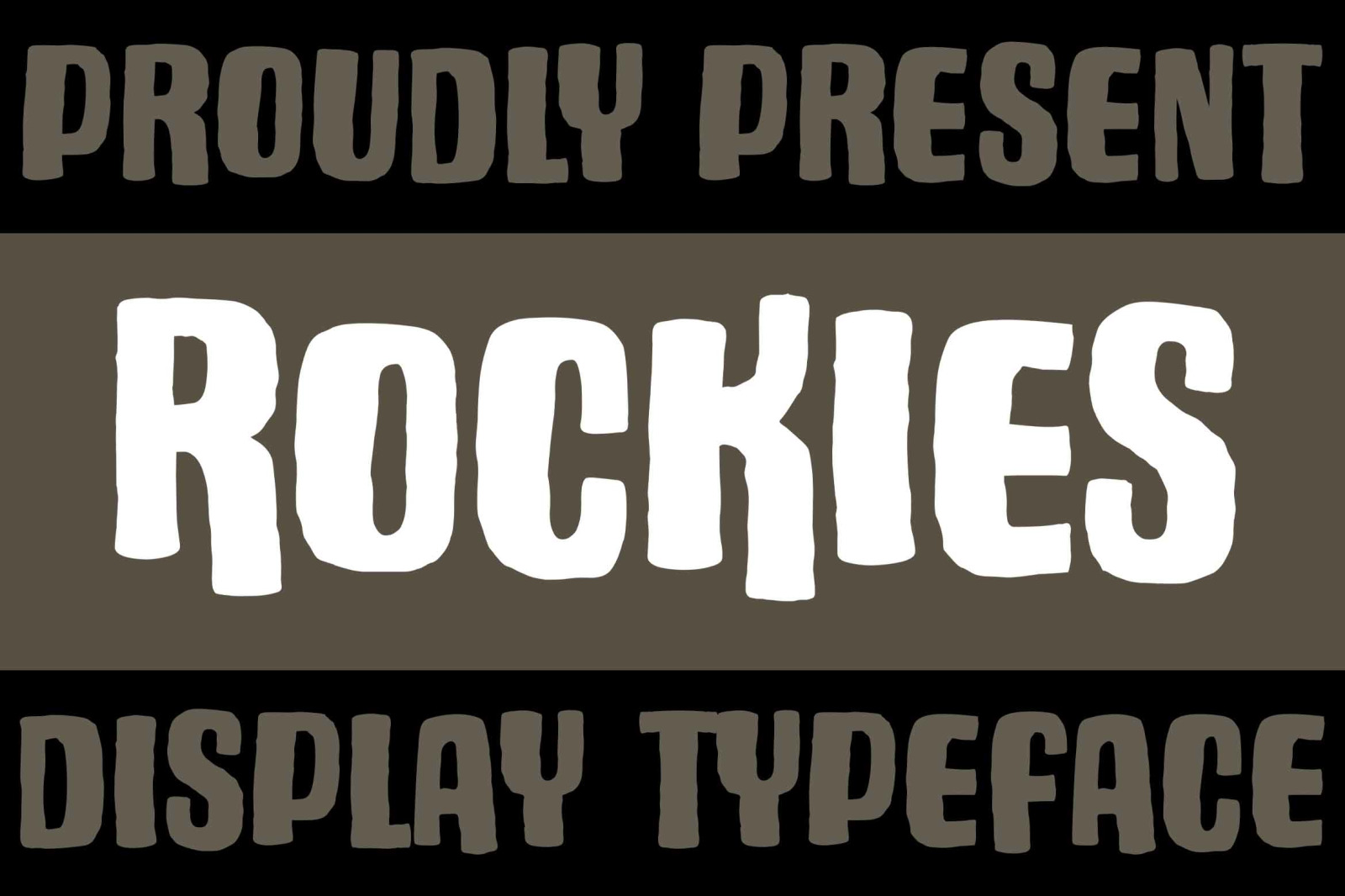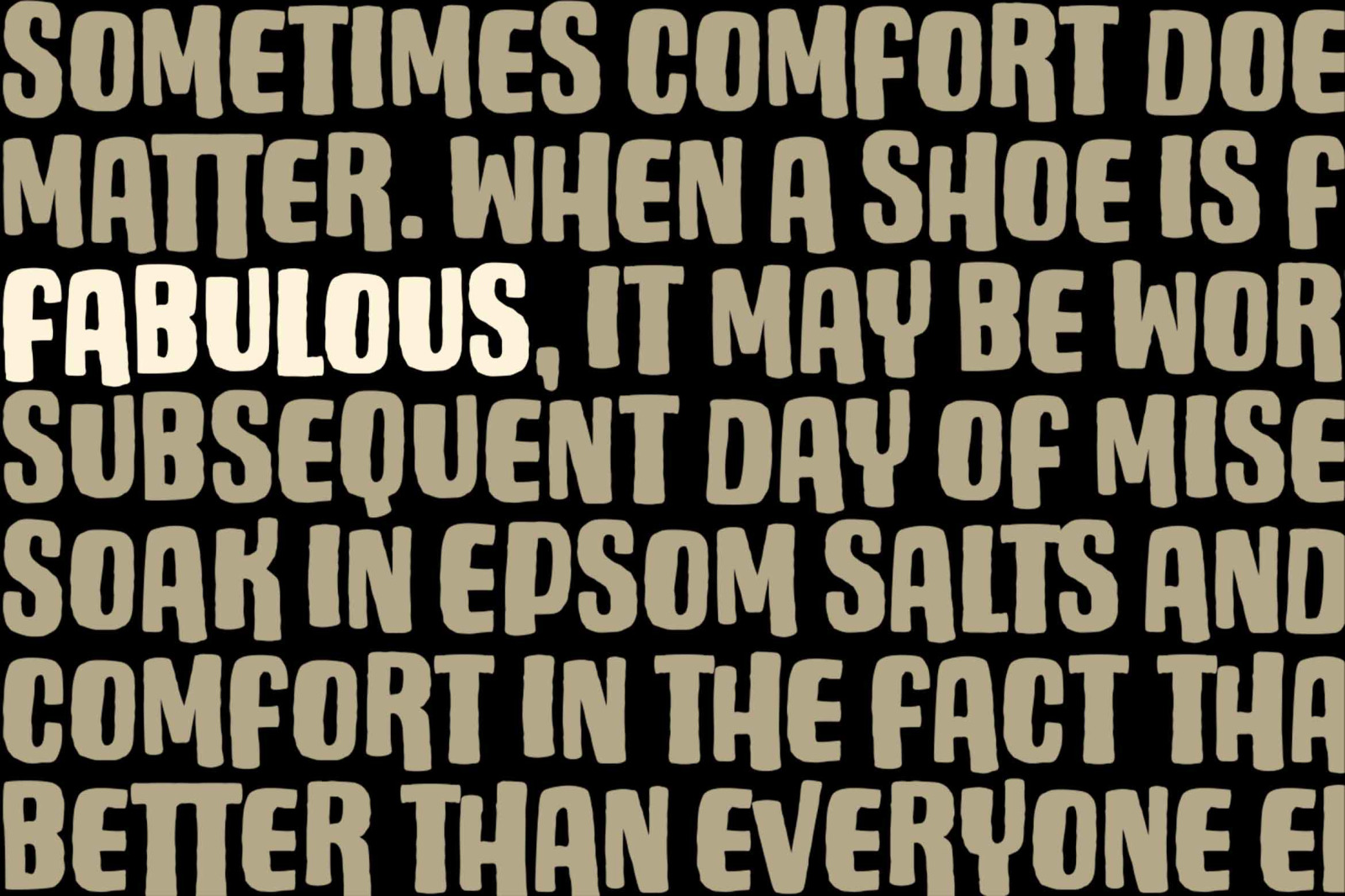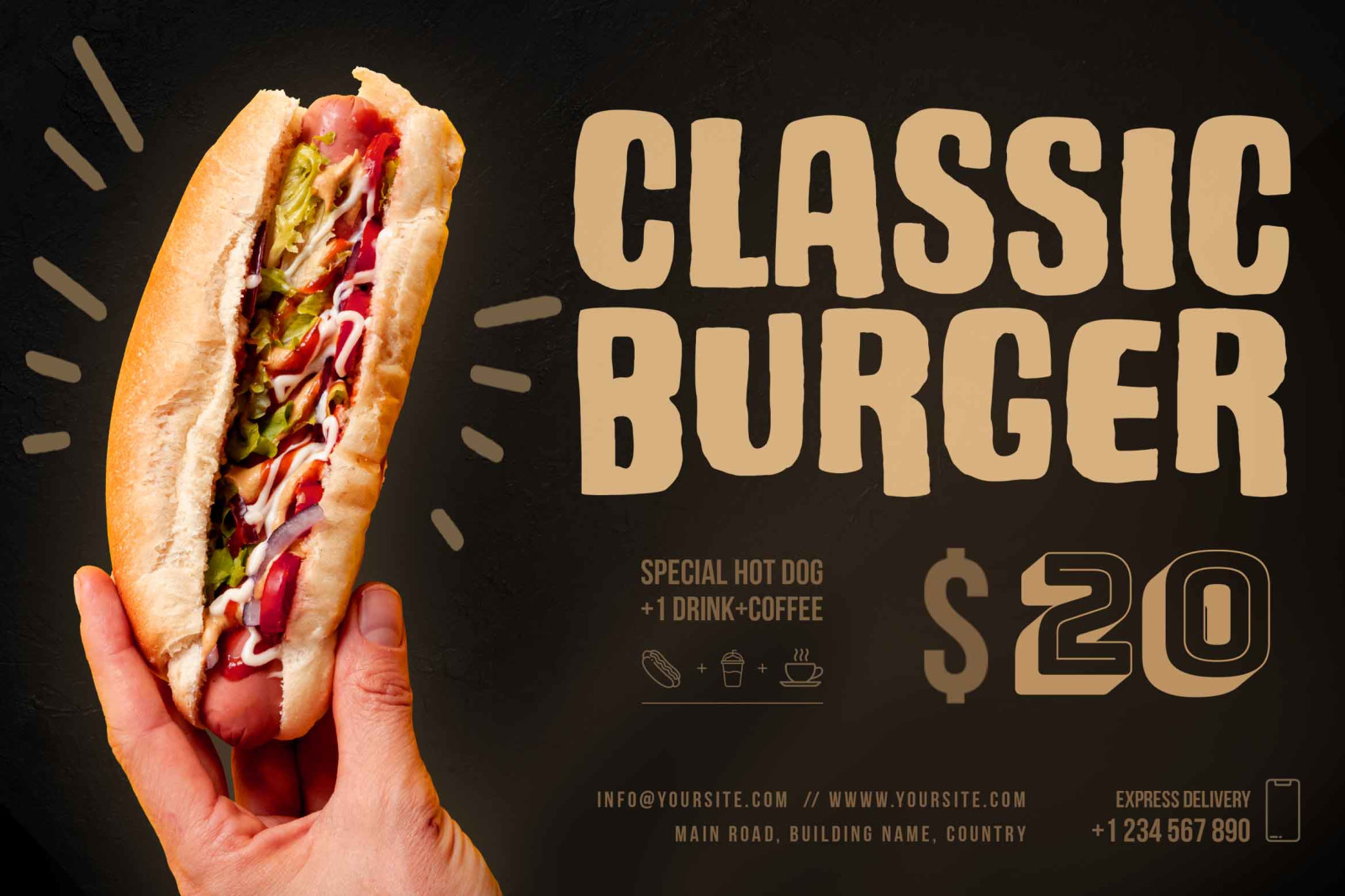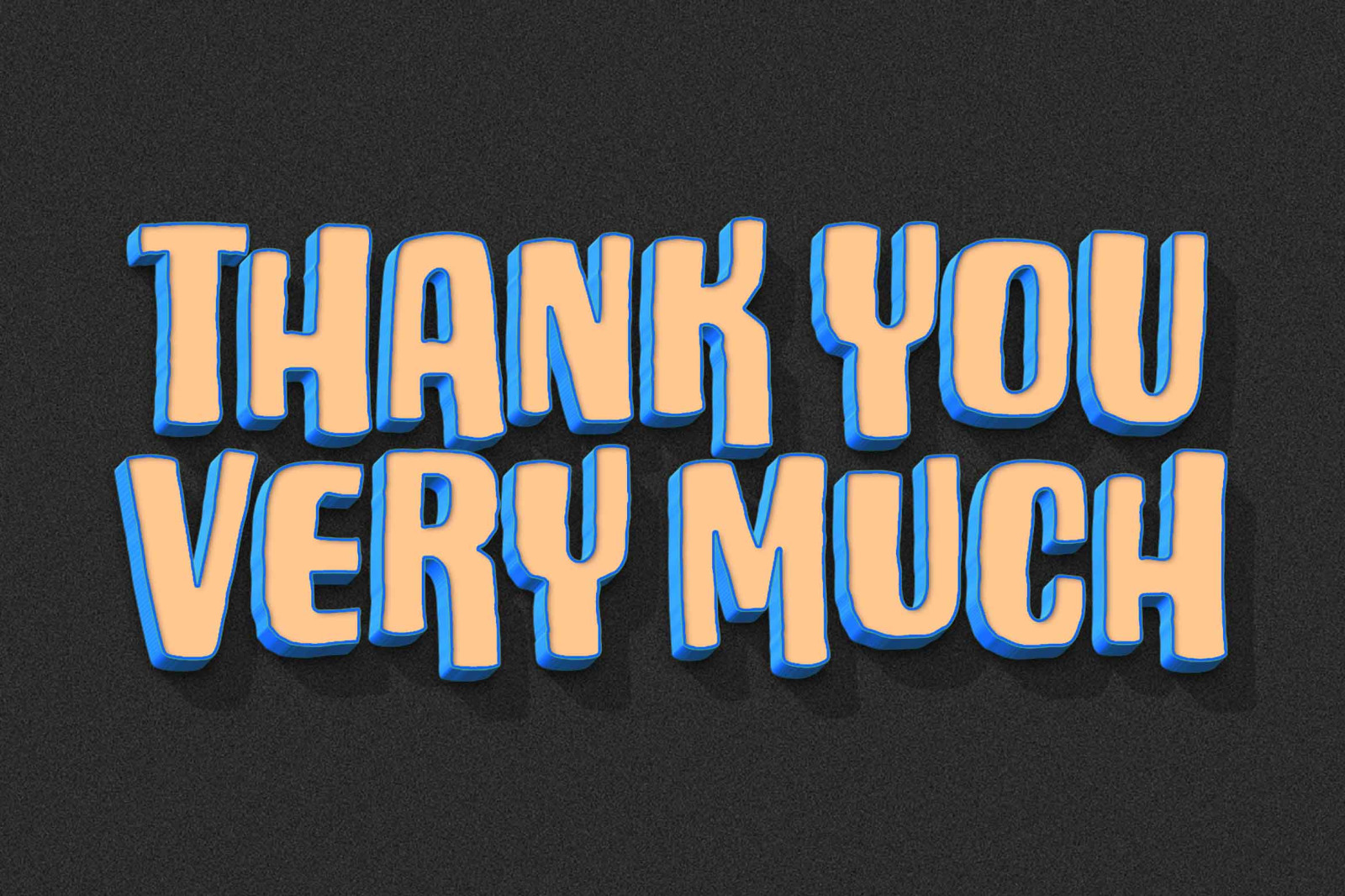
ROCKIES - Rough Font
Rockies is a Rough display font. Comes in a Regular and a italic version, so take your pick!
this font is quirkiness and authenticity. This enchanting sans serif font will turn any creative idea into a true standout.
regular and italic version
multilingual support